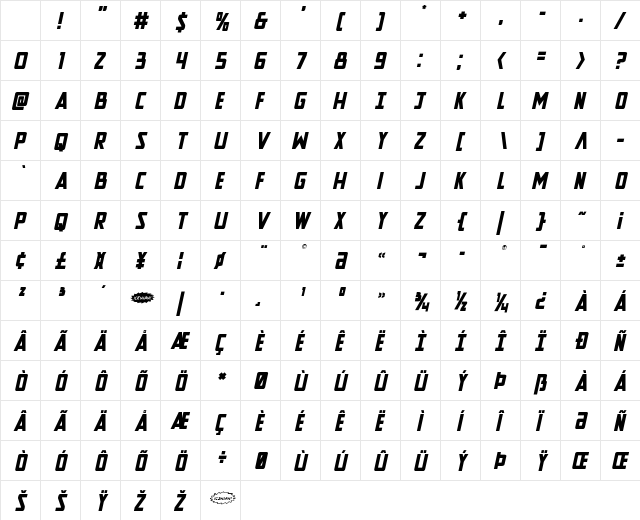
Complete New Comic Title Italic glyph index. Displaying only characters natively supported by New Comic Title Italic font.
New Comic Title has an approachable, lighthearted character - its loose, expressive forms are well-suited to children's content, casual branding, and fun-first design. The slanted form adds forward momentum and visual energy.
Font Pairing: Pairs well with a rounded or humanist sans for body copy, maintaining the friendly tone without relying on New Comic Title to carry extended reading.
Pro Tip: Use New Comic Title at larger display sizes where its expressive character can land. Pair with a clean, simple sans for body copy to maintain readability.